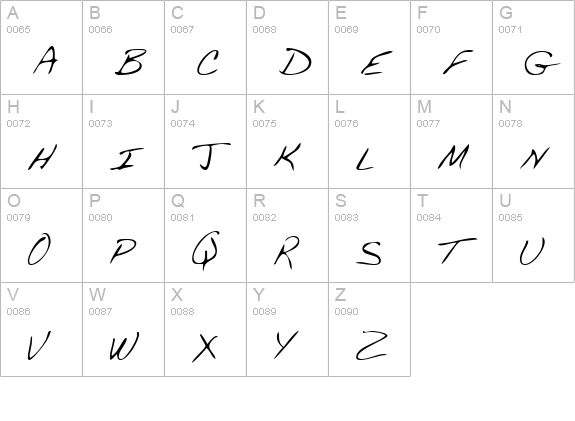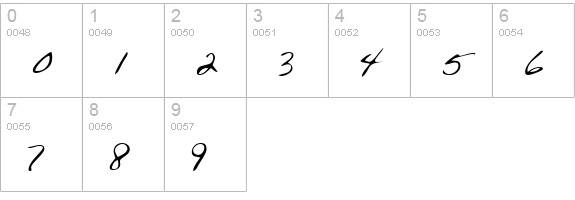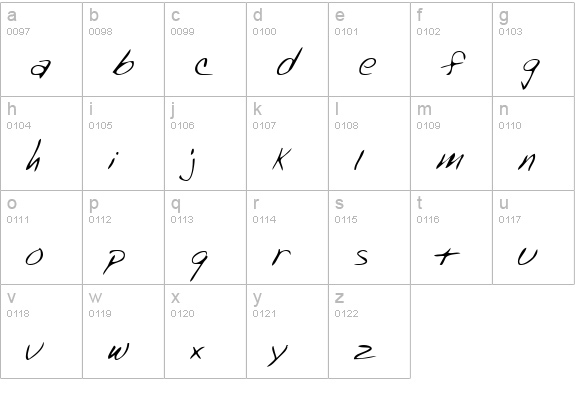
DereksHand Regular Font Details
DereksHand Regular is the standard, neutral variant in the DereksHand typeface family \xE2\x80\x94 well suited to general body text, paragraphs, and standard typographic work.
DereksHand Regular font is a charming and versatile typeface that exudes a sense of warmth and friendliness. With its hand-drawn appearance and fluid strokes, this font is perfect for adding a personal touch to your projects. Whether you're designing greeting cards, invitations, or social media graphics, DereksHand Regular will bring a unique and playful element to your work. Best of all, DereksHand Regular font is freely available to download at FontsMarket.com. This means you can easily access this delightful typeface and start incorporating it into your designs without any cost. Don't miss out on the opportunity to enhance your creations with the whimsical charm of DereksHand Regular font. Download it today and let your creativity shine!